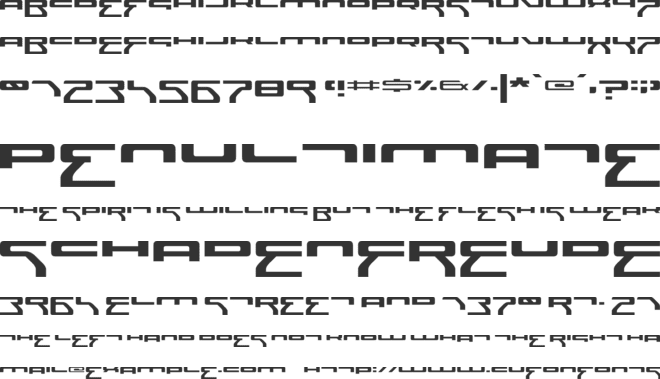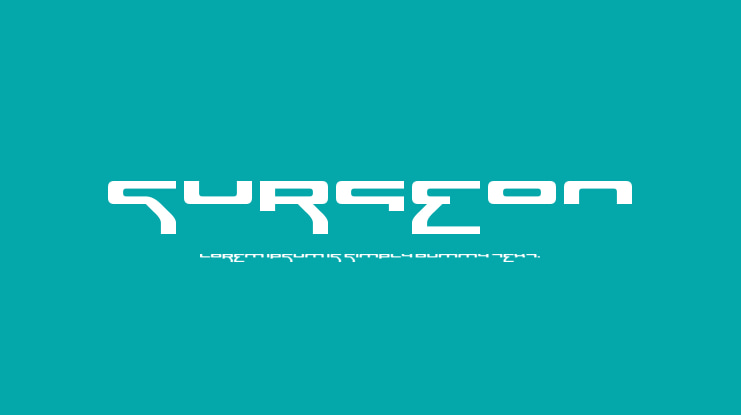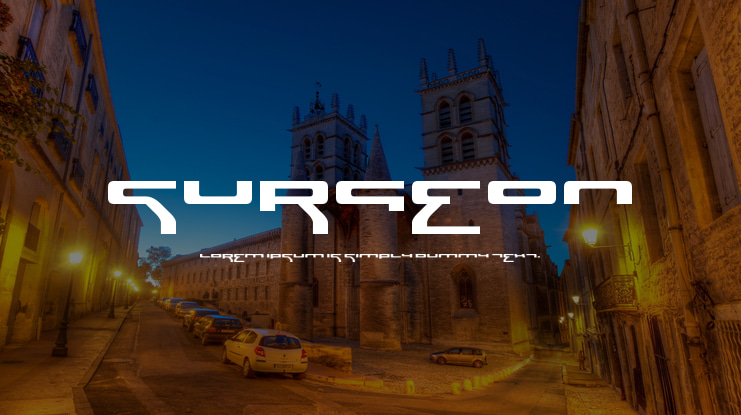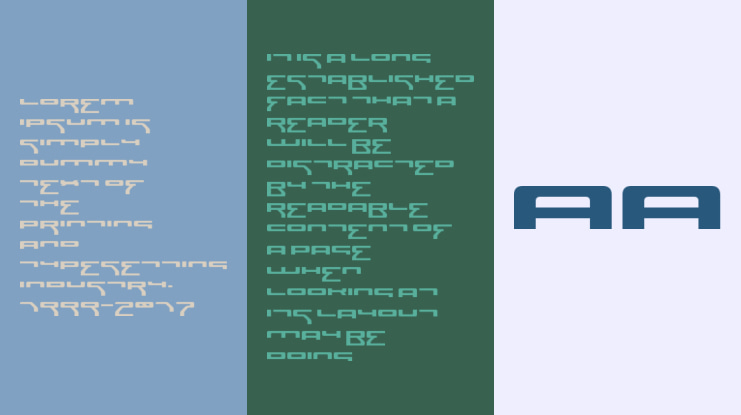
Surgeon Font
Simply the firstest font I've ever created (ca. 2004), inspired by The Designers Republic' works for the Wipeout video game.
Yep, they did it far better;).